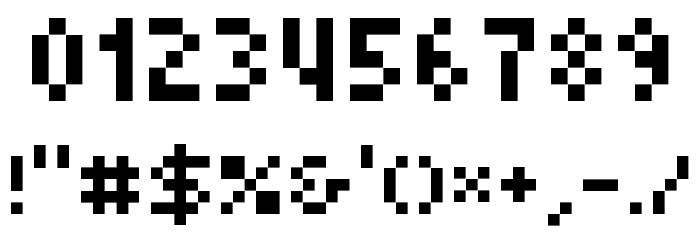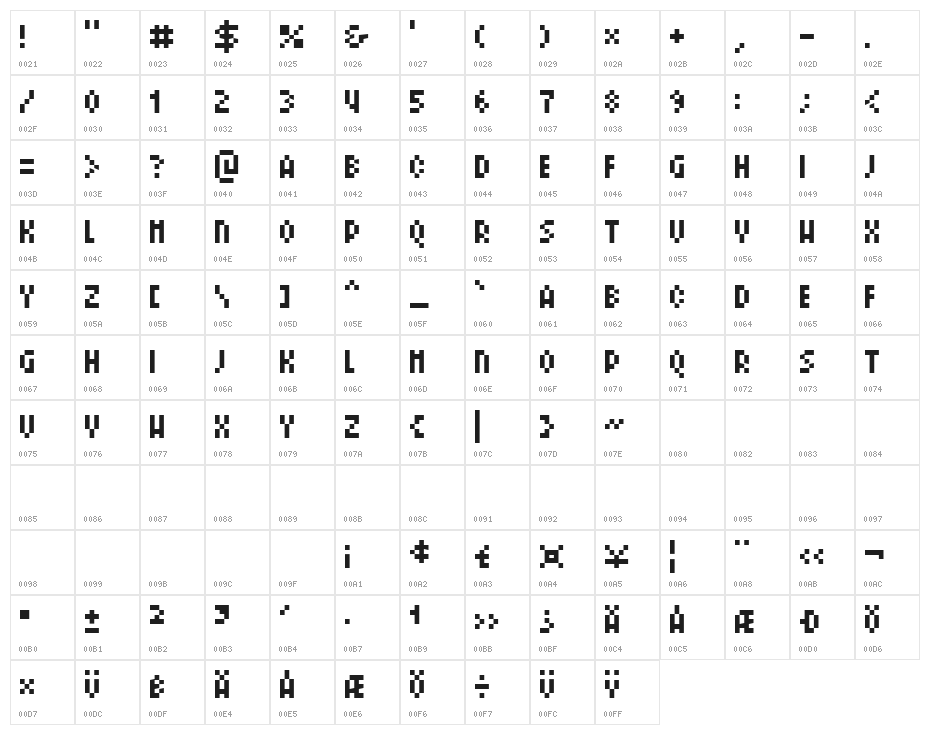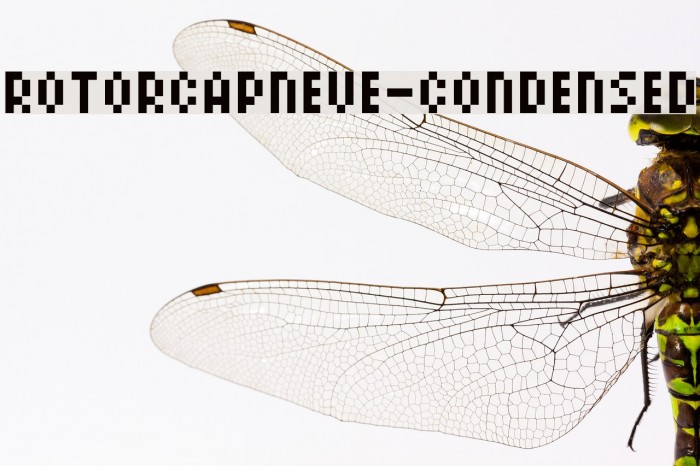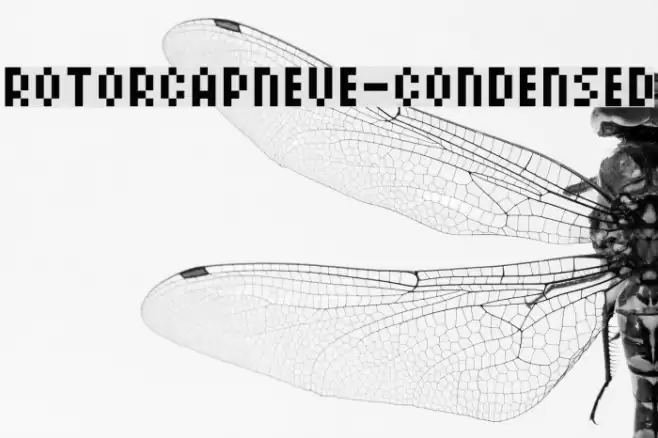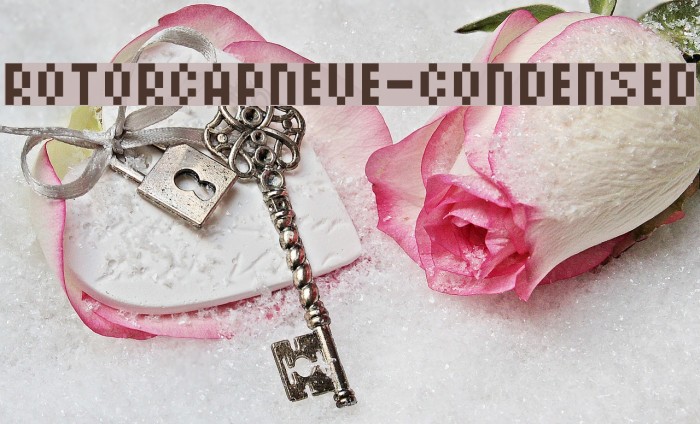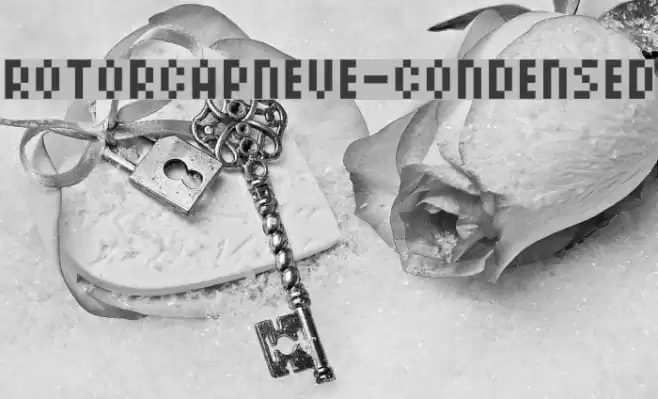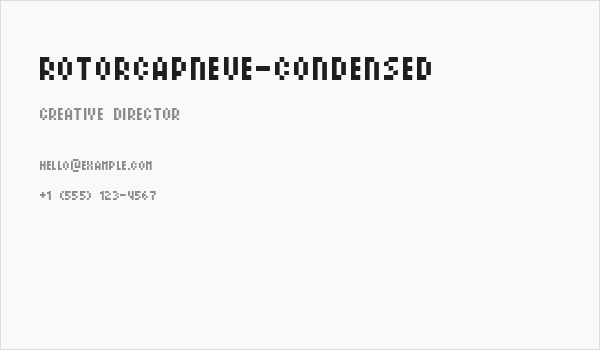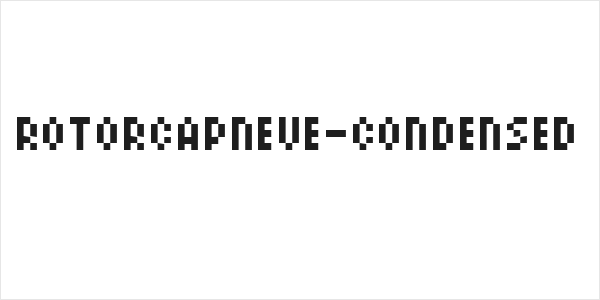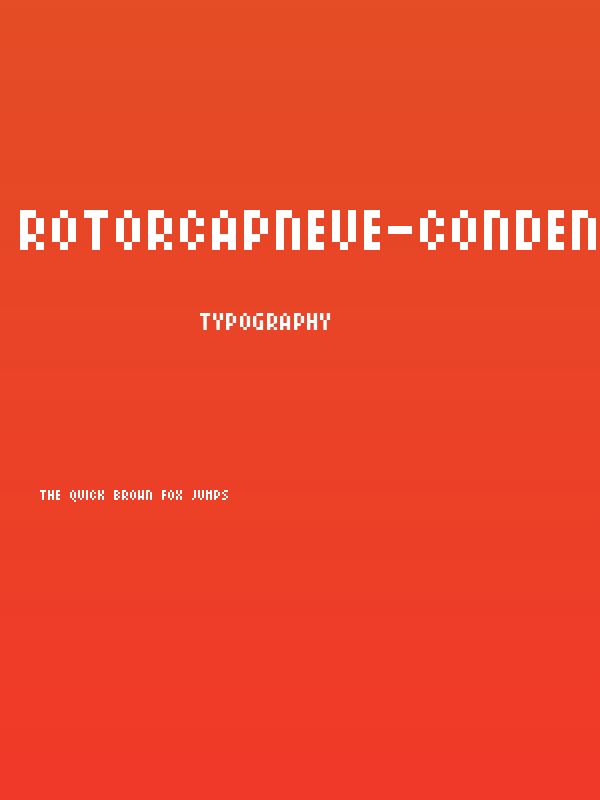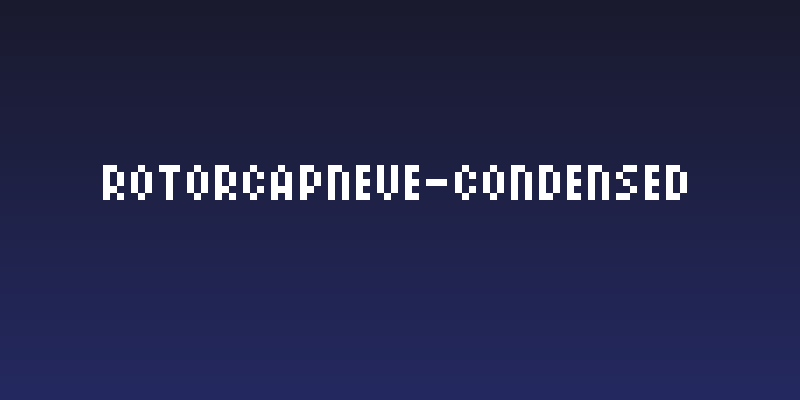
ROTORcapNeue-Condensed Font
ROTORcapNeue-Condensed Description
This font features a bold, pixelated design reminiscent of early digital displays and retro video games. Each character is constructed with a grid-like precision, giving it a blocky, geometric appearance. The uppercase and lowercase letters maintain a consistent height, enhancing the uniformity of the typeface. Numbers and special characters follow the same pixelated style, ensuring a cohesive look across all glyphs. The condensed width allows for efficient use of space, making it suitable for environments where space is limited. Its distinct style makes it stand out, capturing attention with its nostalgic yet modern appeal.
| Overall Style | Retro, Modern |
| Proposed Projects | Ideal for video game design, tech-themed posters, digital art projects, and retro-style branding. |